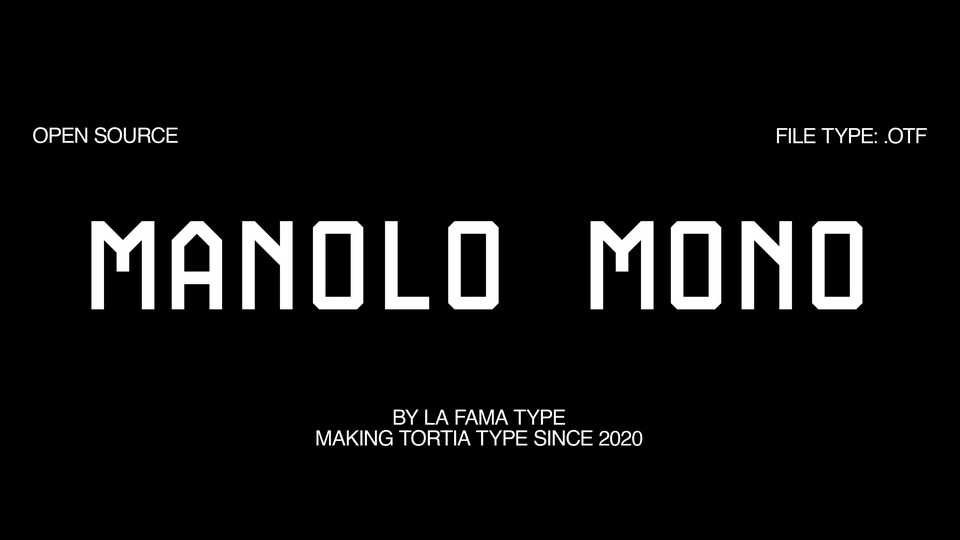
Download Manolo Mono font, a minimal monospaced typeface, combining pure, strong geometrical form with a subtle, distinct appearance. Manolo Mono font works great at logos, posters, web, and other display settings.